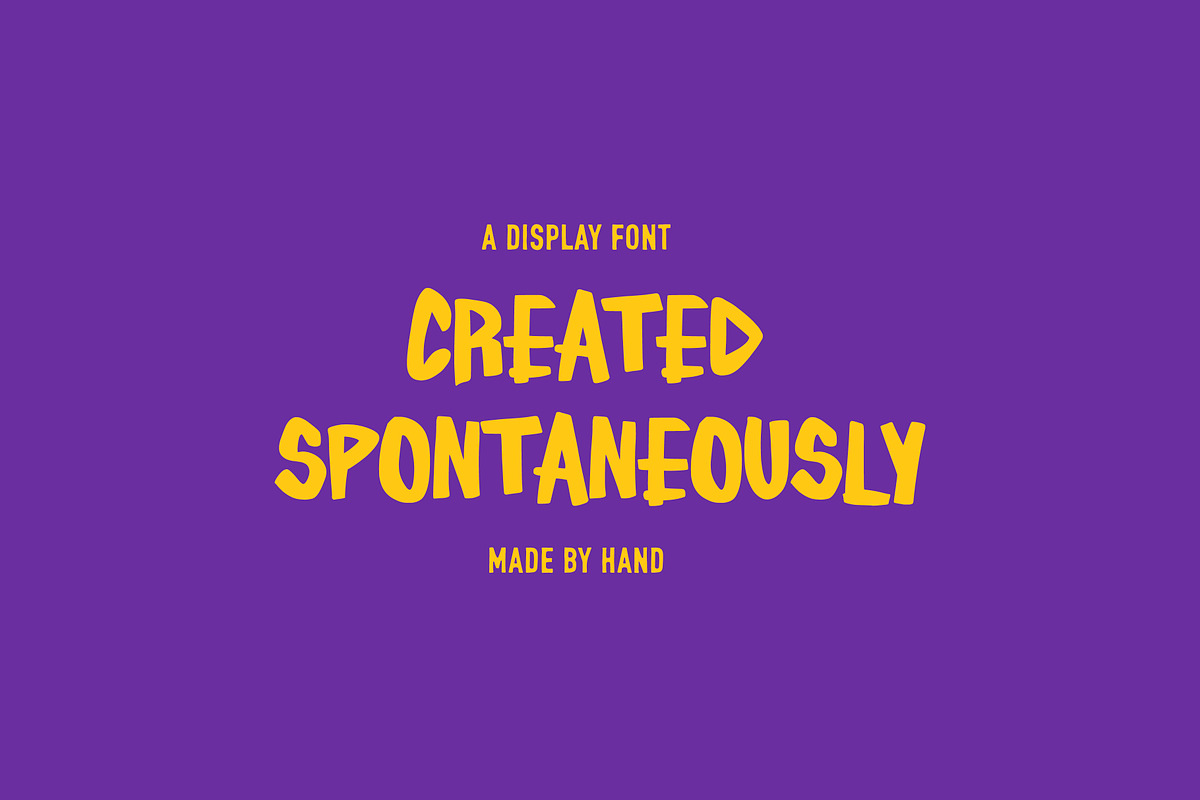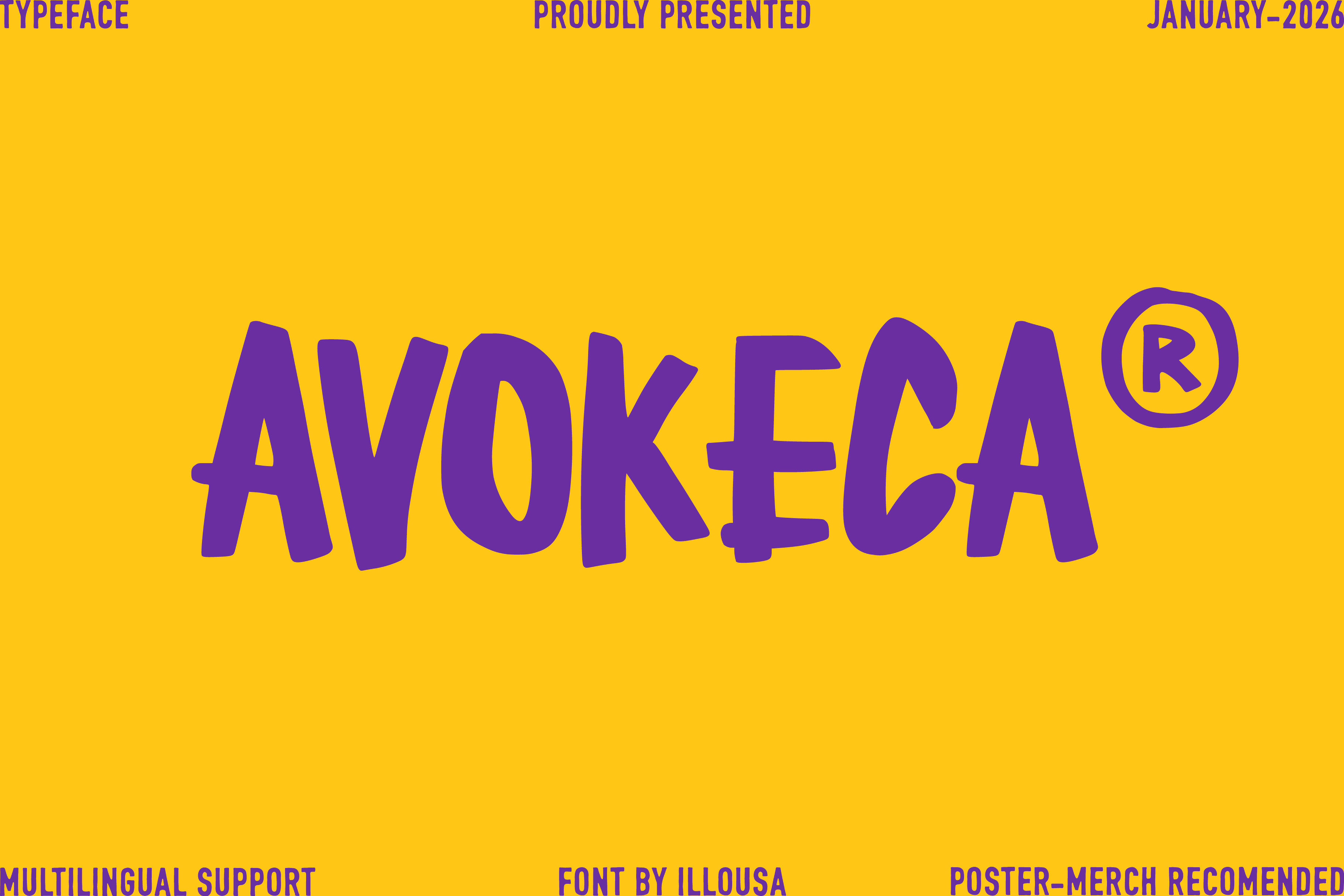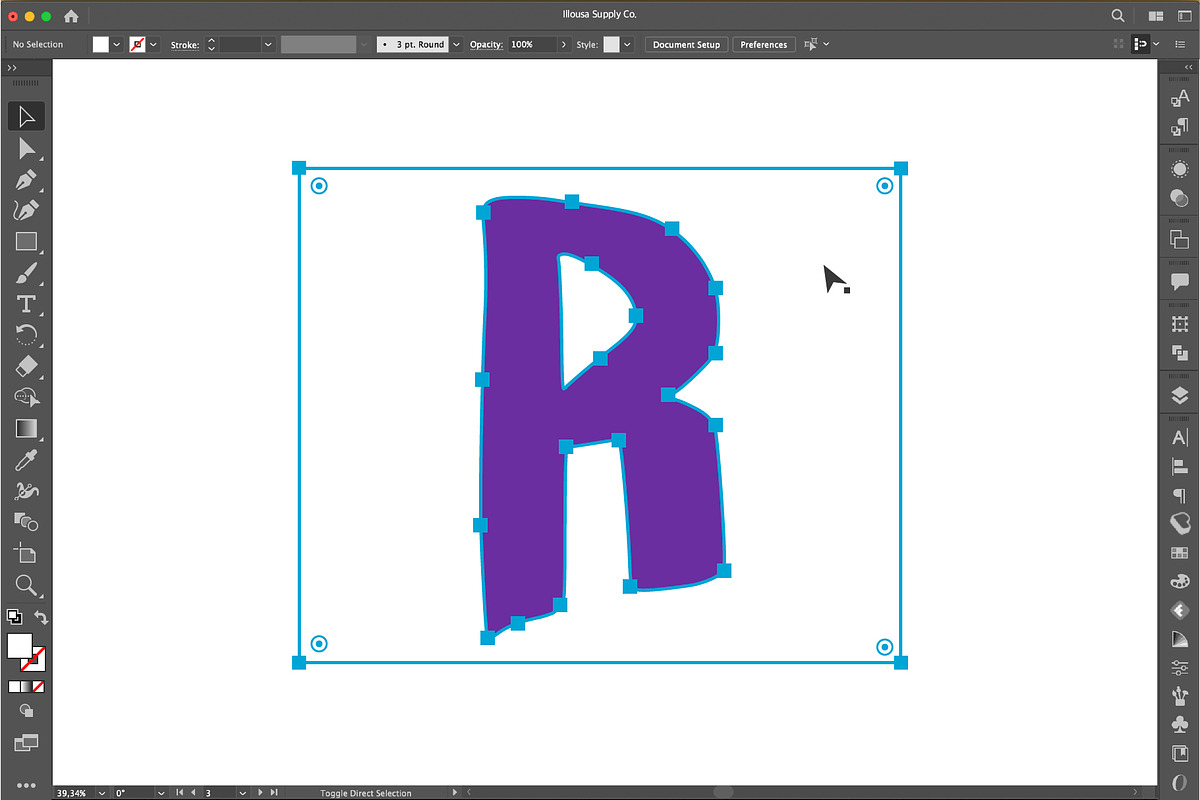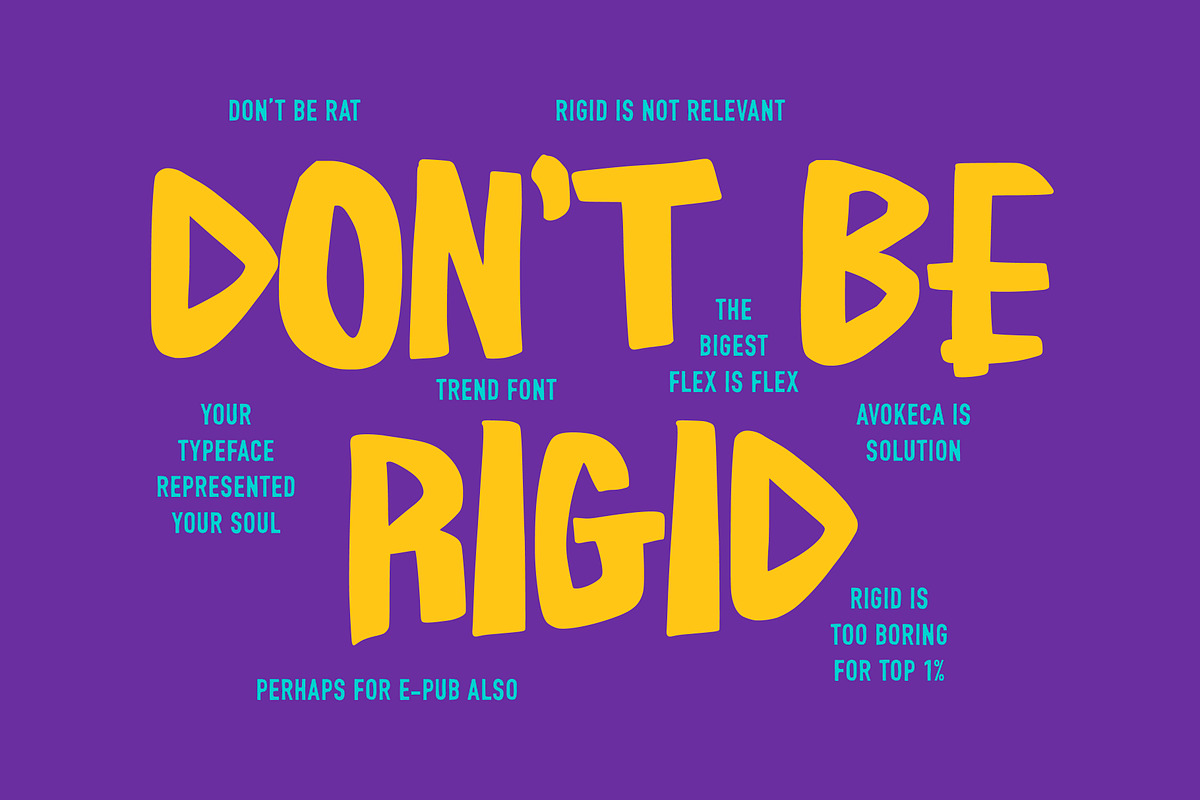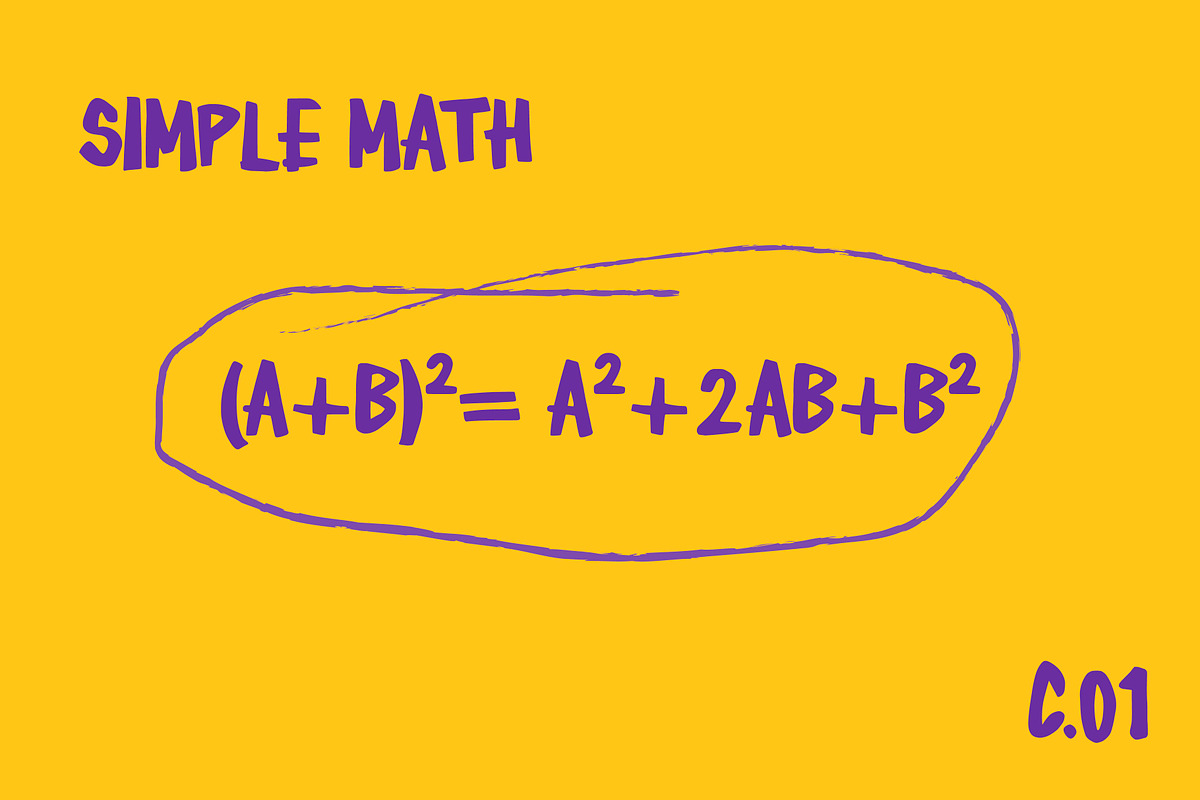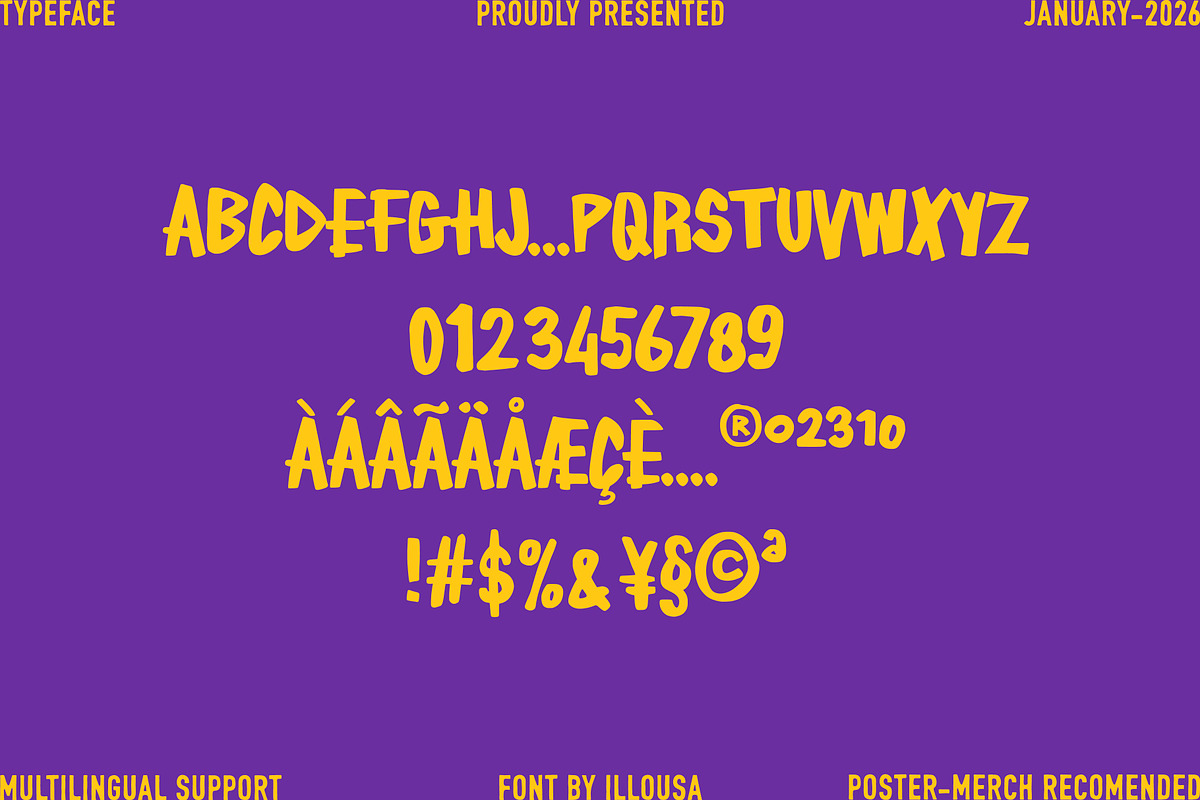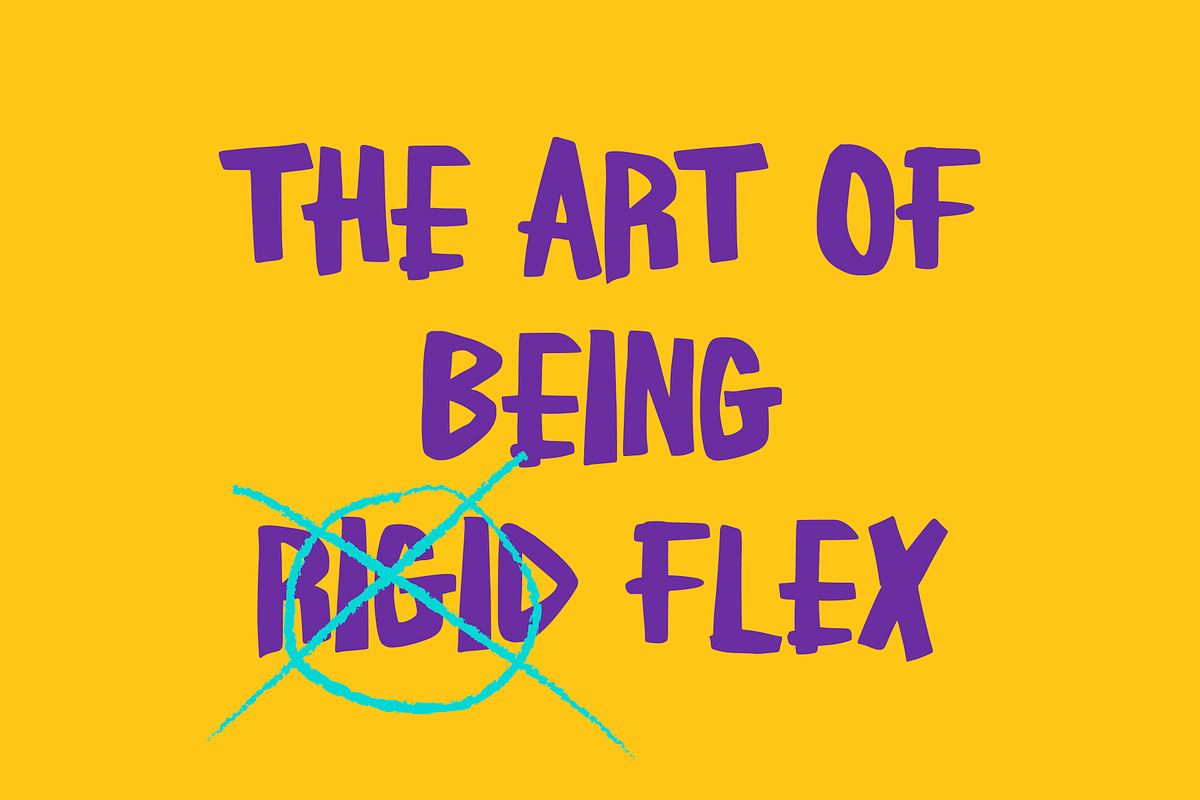
Avokeca | Hand-Drawn Font
Don't be rigid—be bold with AVOKECA! This playful, hand-crafted display font is your solution for designs that need a soul. Perfect for standout merch, posters, and urban branding. With its unique rhythm and multilingual support, AVOKECA turns boring layouts into art. Grab it and flex your creativity!
Vibe: Fun, Bold, and Unapologetic.
Best For: Posters, Streetwear, Branding, and Social Media.
Support: Multilingual characters included.